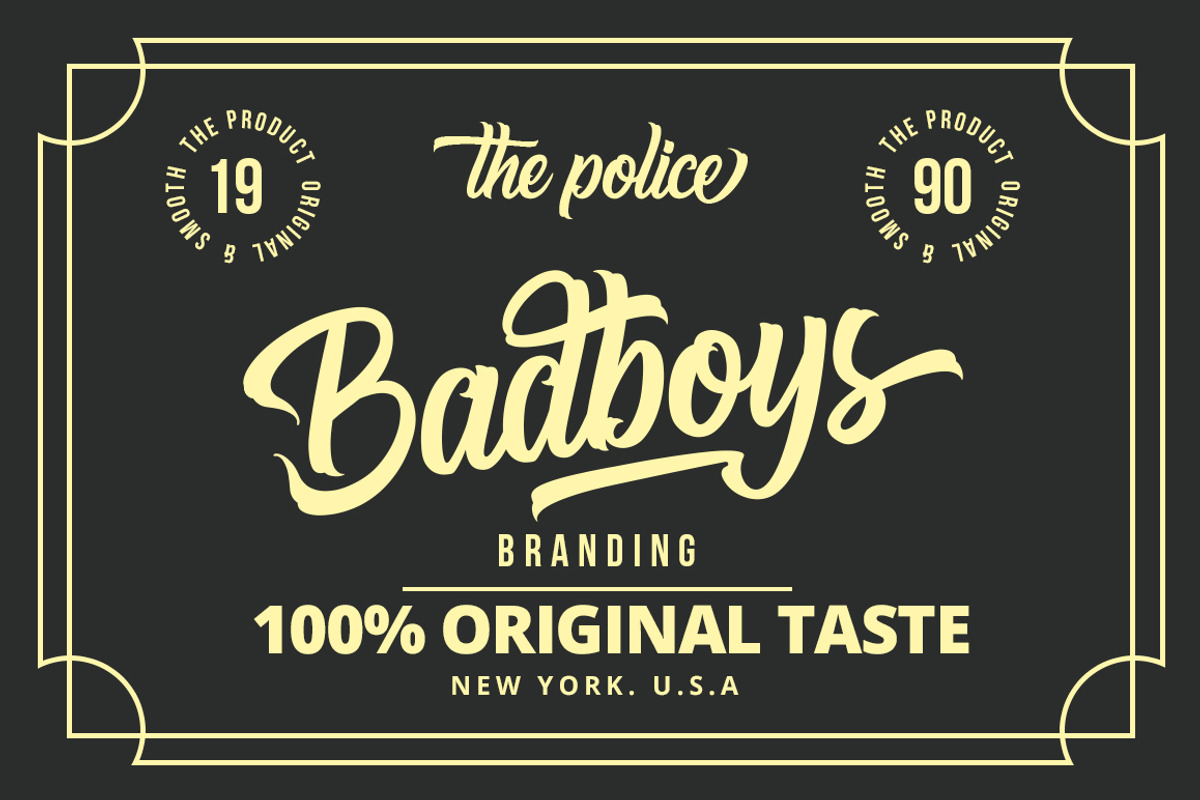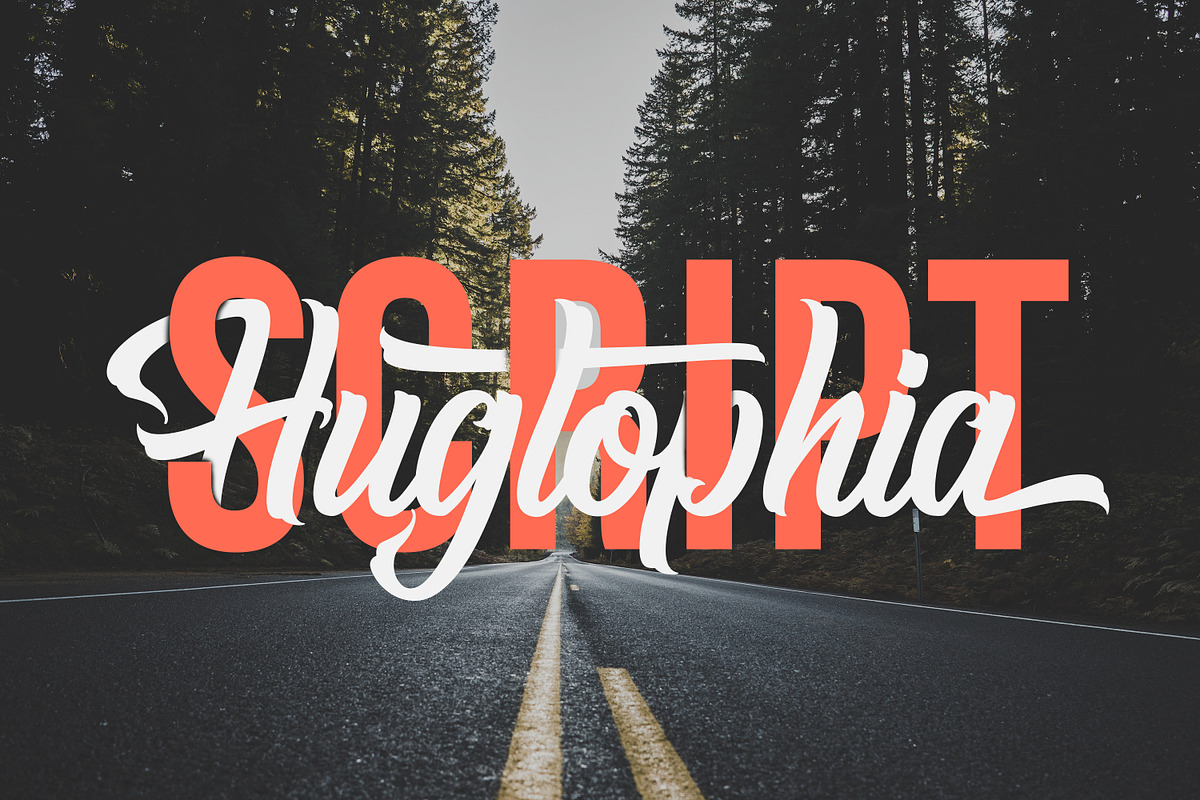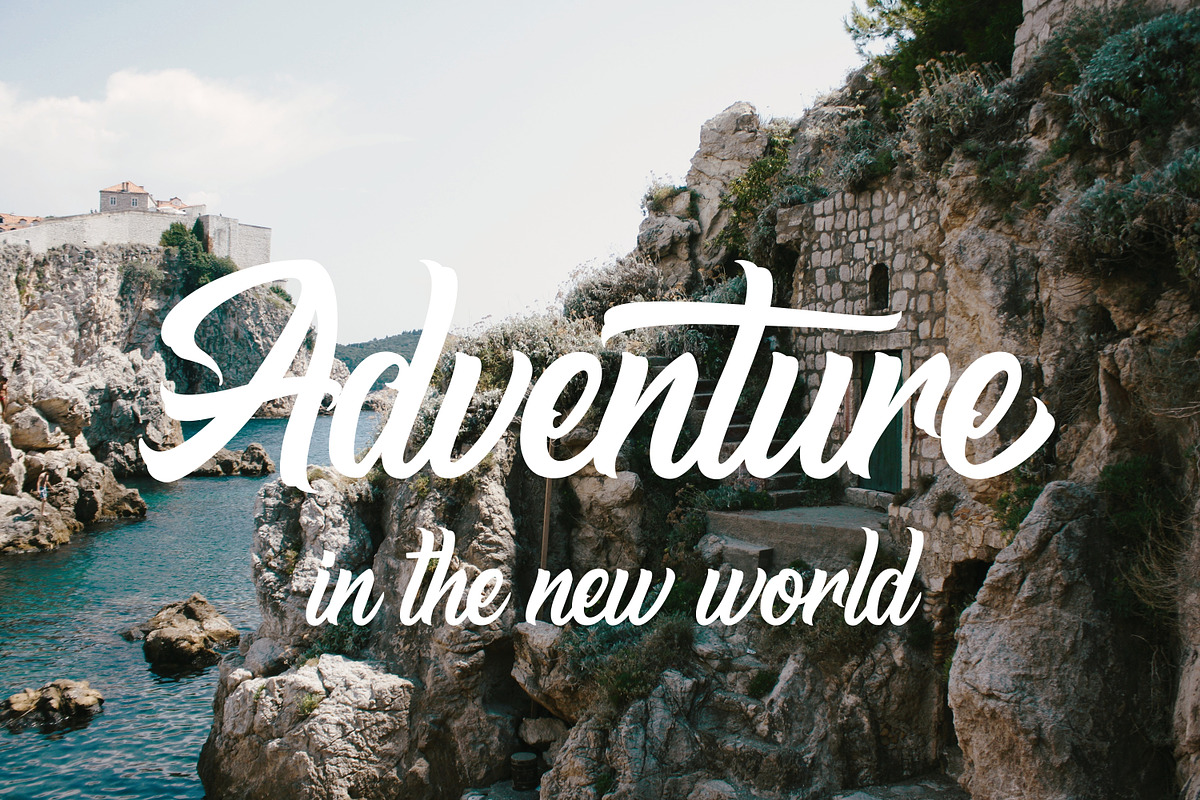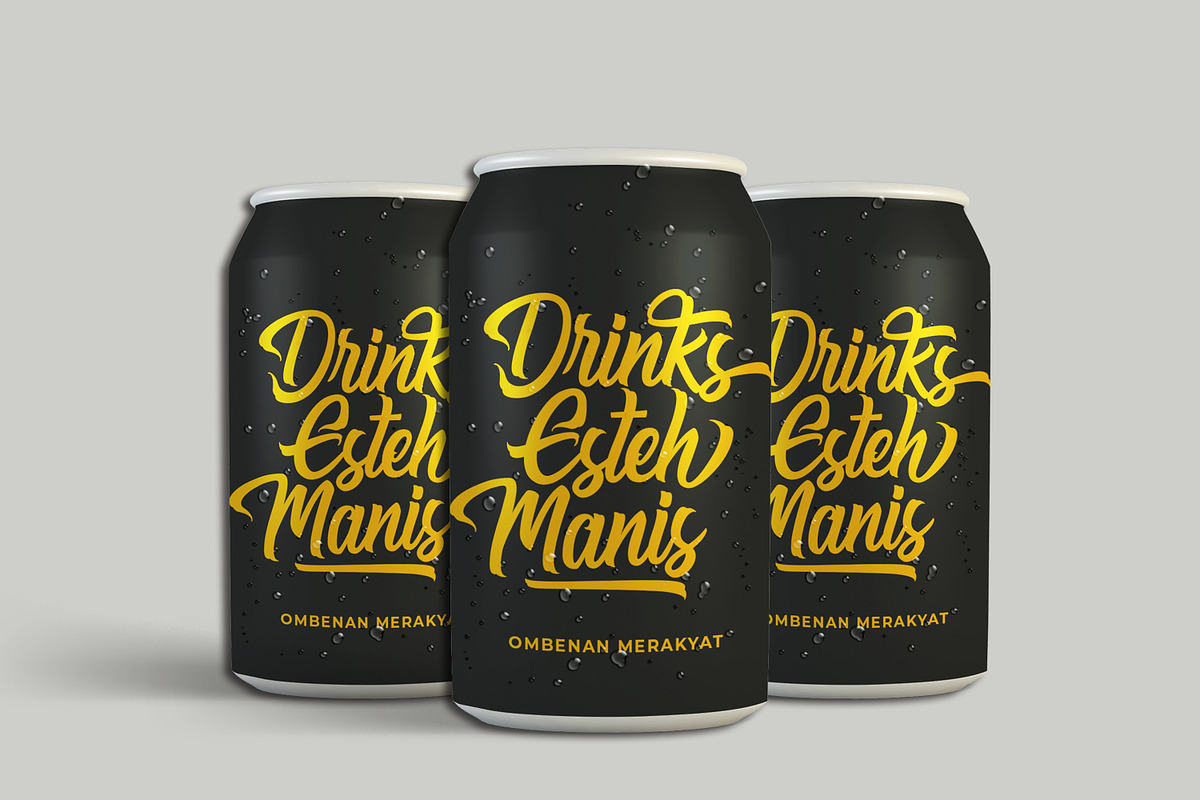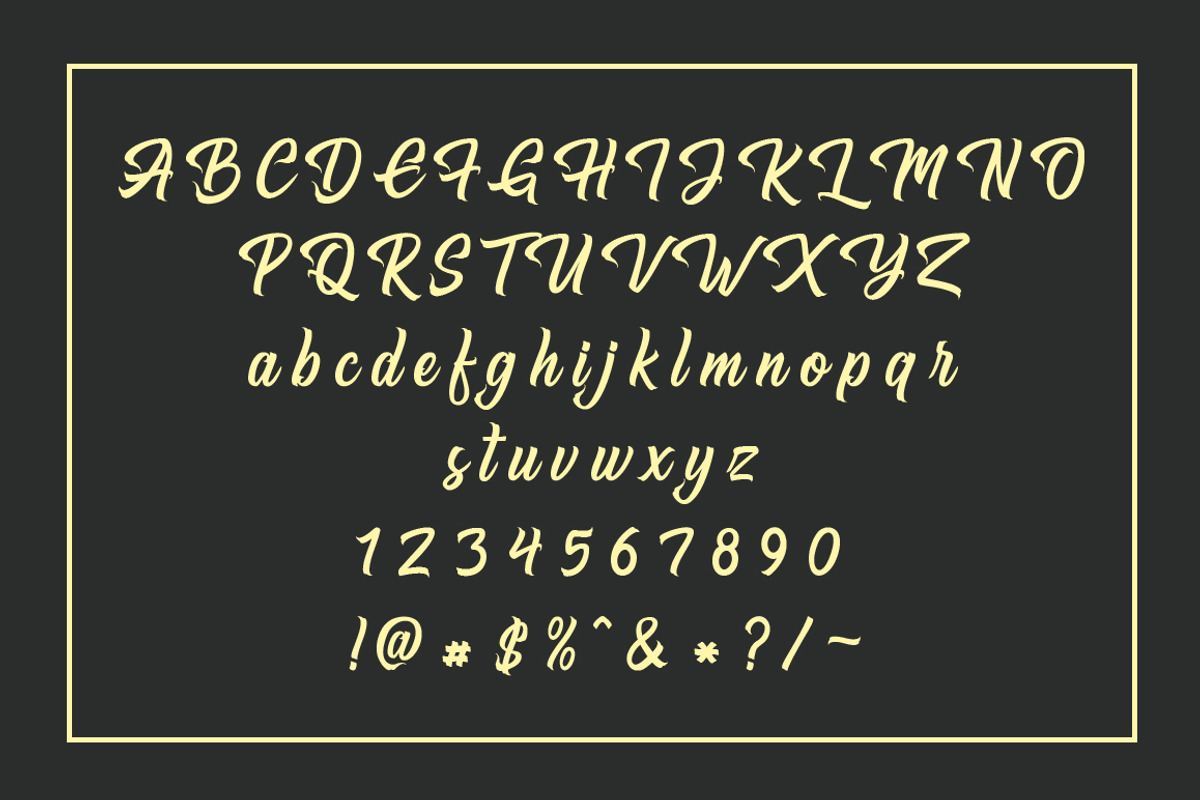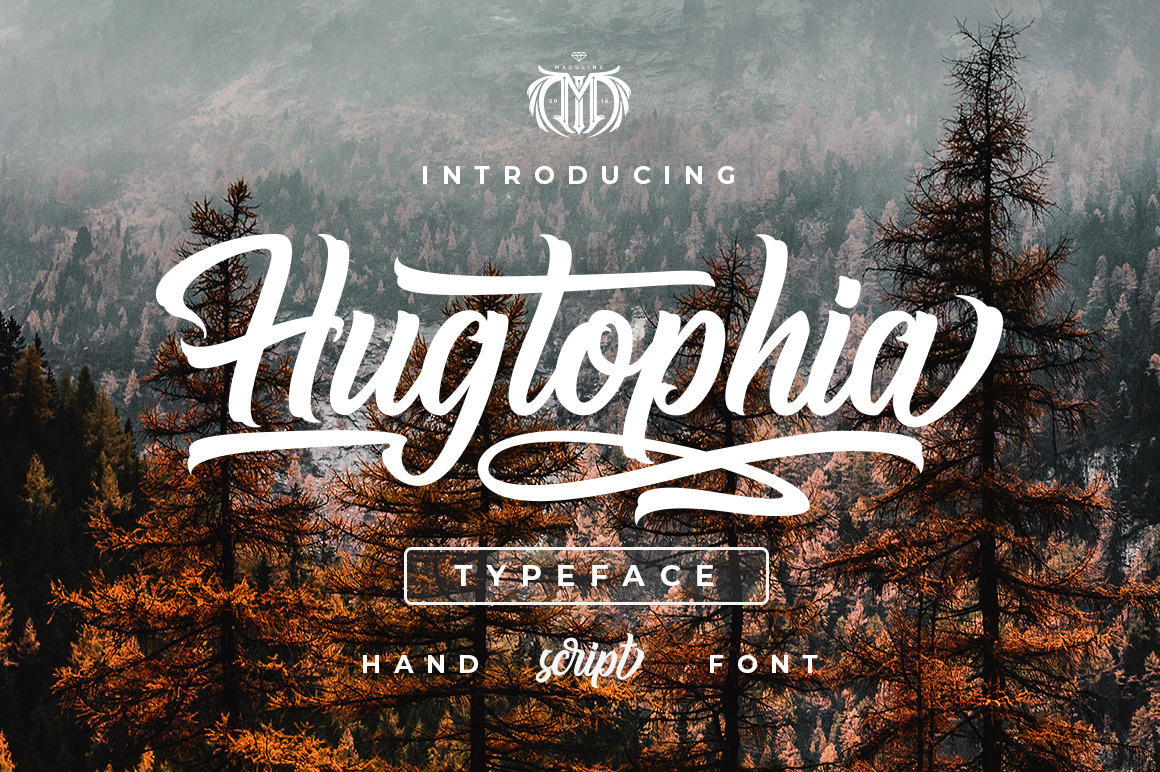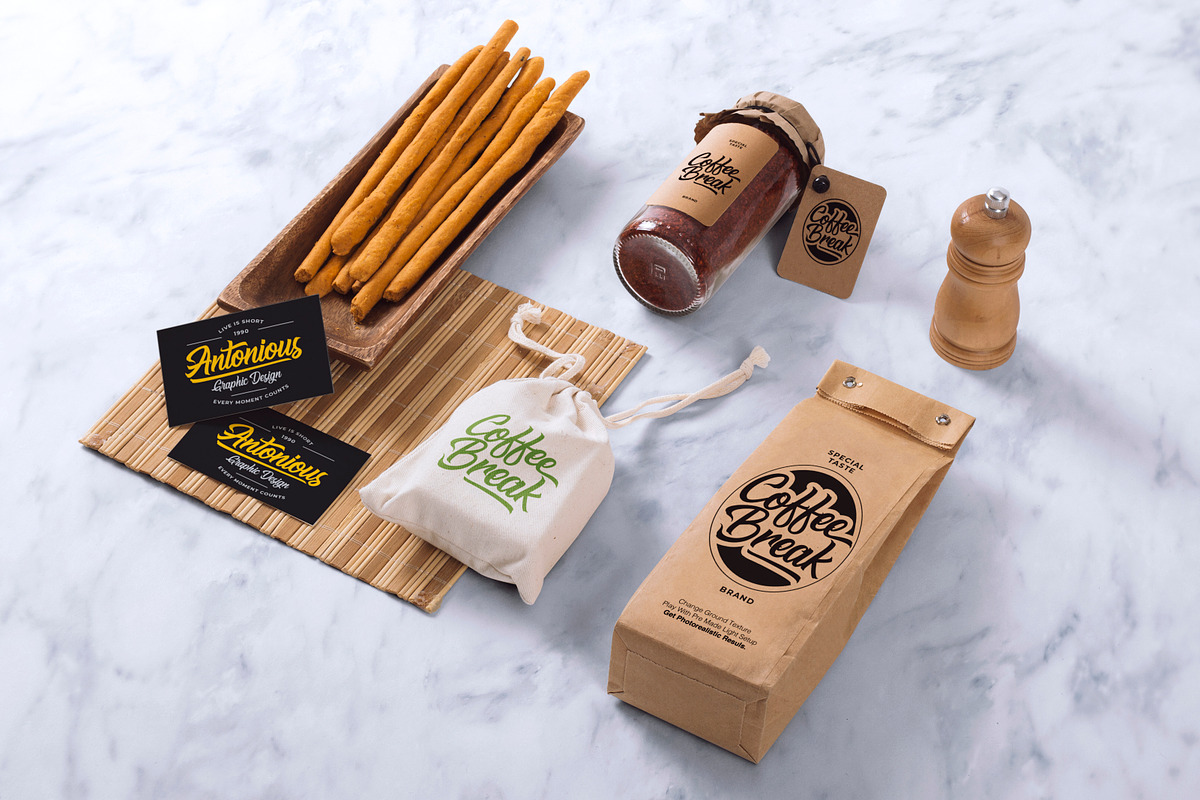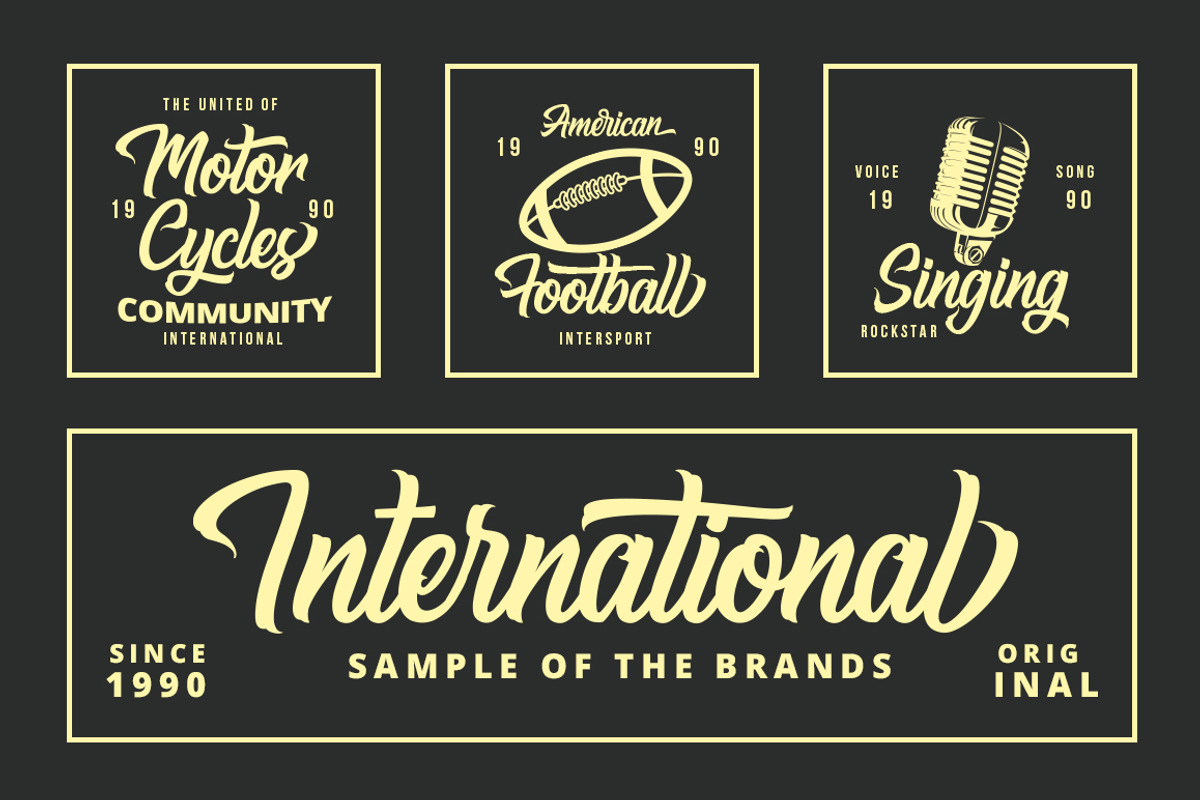
Hugtophia - Script Font
This font creation is inspired by a fairy tale from a modern fantasy country but does not eliminate their culture, a country full of love and peace removes people's minds to commit evil.
Hugtophia is a simple typography and easy to read so comfortable to wear. You can use them as logos, badges, packaging, headlines, posters, t-shirts / clothing, greeting cards, business cards, and wedding invitations and more. The flowing character is ideal for creating interesting messages to your taste.
mix and match a group of alternate characters to fit your project. It will be more interesting if you add swash.
Alternate characters in this font are divided into several OpenType features such as Stylistic Alternate, Ligature and Ligature Alternates.